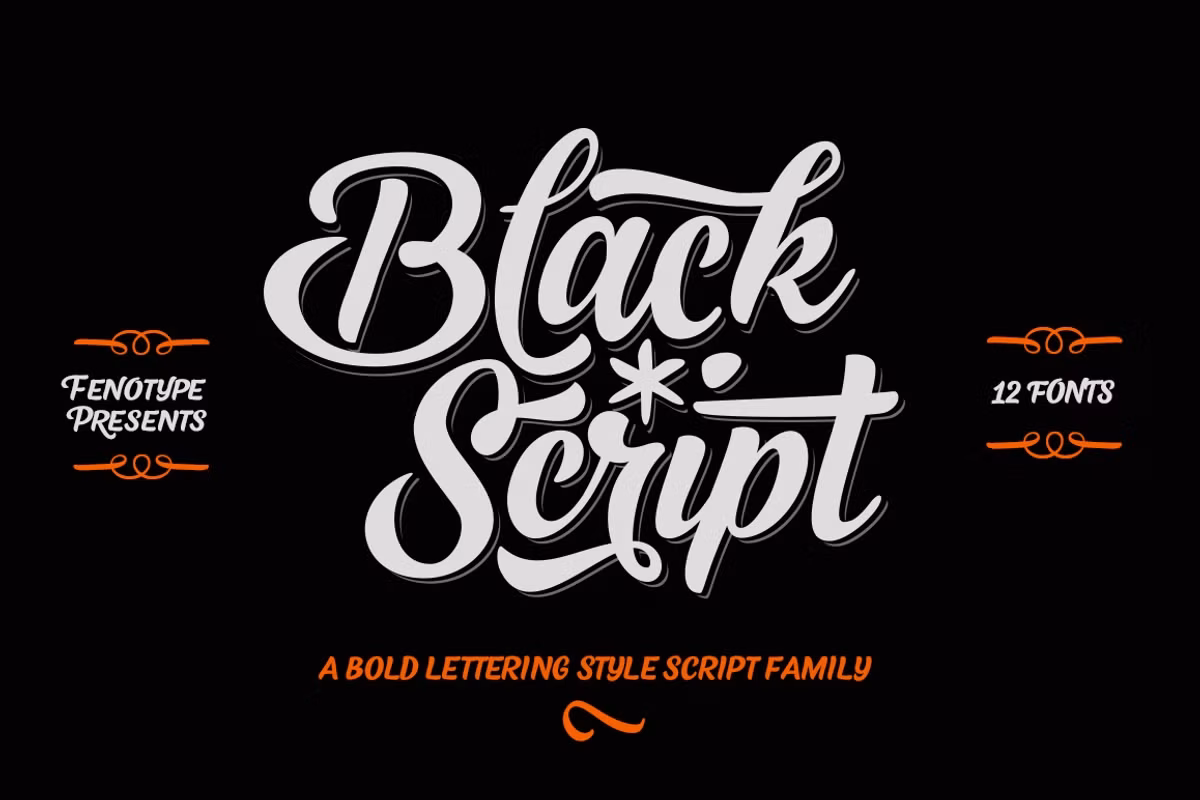
Black Script – 12 Fonts + Extras Pack Free Download is a bold and expressive font collection that features a variety of brush-style scripts, textured letterforms, and edgy hand-lettered designs. Perfect for logos, streetwear branding, album covers, posters, and dynamic social media content, this pack delivers energy and attitude in every stroke.
Black Script – 12 Fonts + Extras Pack Free Download includes a wide range of stylistic options and bonus extras like swashes, underlines, and graphic elements—giving designers a complete toolkit for building bold, urban-inspired visuals. Whether you're going for grunge, graffiti, or high-impact brush lettering, this bundle has you covered. Download it now and bring serious style and power to your next creative project.